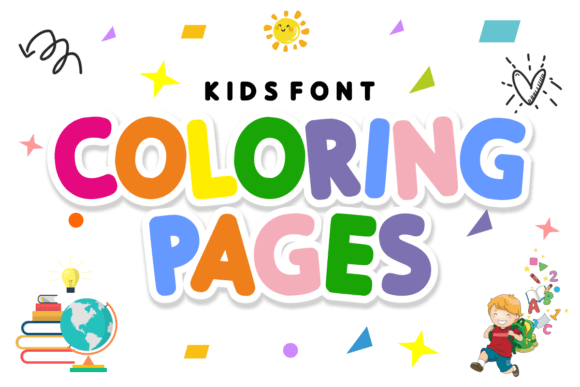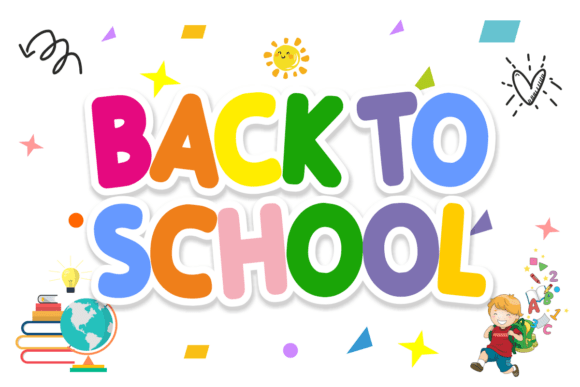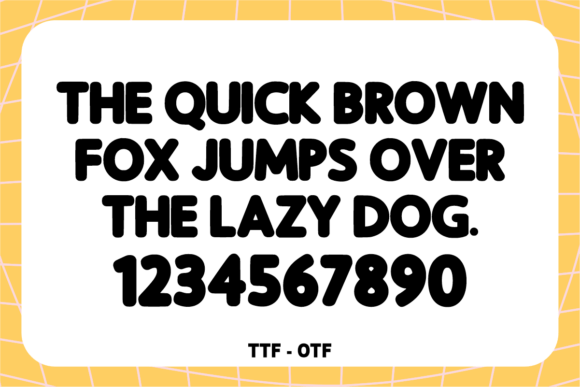
Introduction to Playful Kids Font
Playful Kids – Bubbly & Cheerful Children Display Font 🎨✨🎒 Bring a burst of joy to your creative projects with Playful Kids.
🎈 This bold and bubbly display font is specially designed to capture the energetic and friendly spirit of childhood Featuring soft, rounded edges and a chunky, high-legibility style, it is the perfect choice for making your designs stand out with a smile.
Key Features of Playful Kids Font
Why Choose Playful Kids Font?
Playful Kids Font offers exceptional quality and versatility, making it a valuable addition to your design toolkit. Whether you’re creating for personal projects or commercial use, Playful Kids Font delivers professional results.